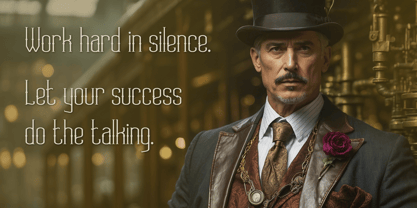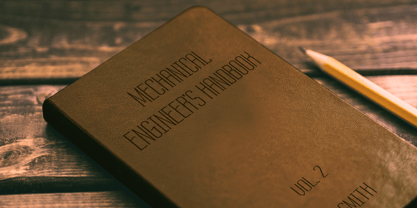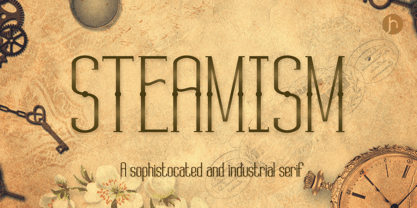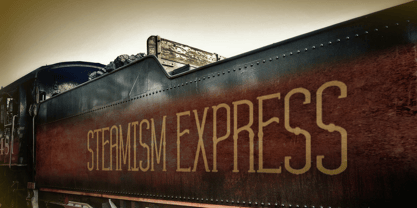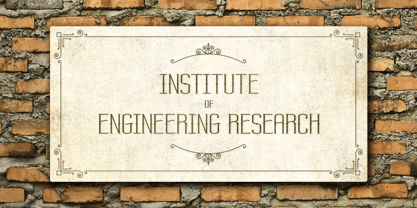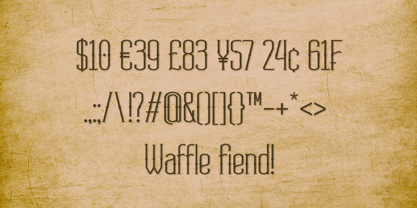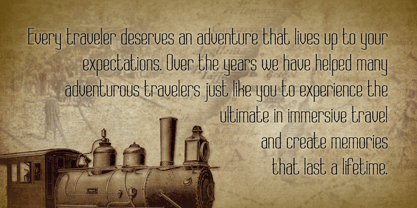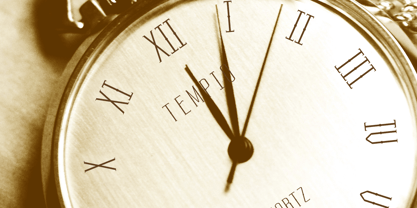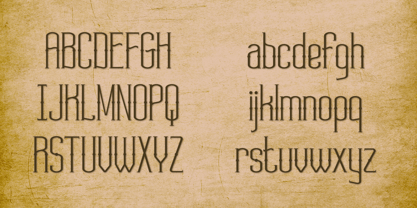
Steamism
by Joe Hewitt Design
The Steamism Font Family was designed by Joe Hewitt and published by Joe Hewitt Design. Steamism contains 1 styles.
Steamism was created out of a keen interest in the Steampunk genre. The typeface is refined and elegant with a tip of the hat to the strong and straight vertical lines of rising Industry!
Although designed with steampunk aesthetics in mind, a font of this nature lends itself well to many ventures. From building and vehicle signage to book covers, invites to glamourous events and bodies of text, Steamism is the font for you!
About Joe Hewitt Design
In 2018, I met my fiance through a computer game of all things. One year later, I moved from England to Sweden and started a new phase of my life. A fresh start in so many ways! After over 20 years in various design fields, there was no better time to re-focus on design work that I genuinely enjoy. I took some time, made a list, then considered designing fonts and promptly threw the list away. It just felt right. Typography is a fascinating and diverse field, and I look forward to immersing myself more in the subject. Thank you for checking out my typeface. I hope to see you again in the future!